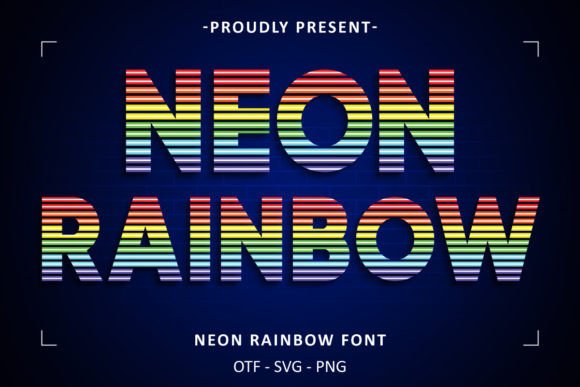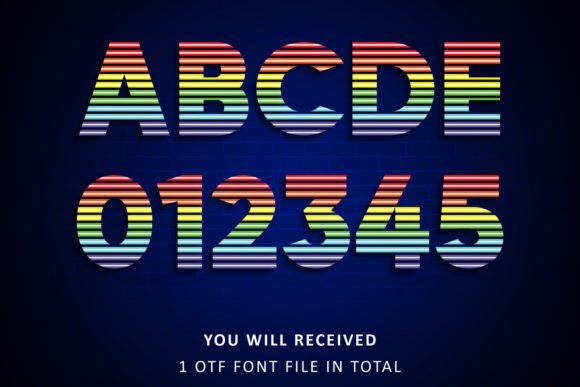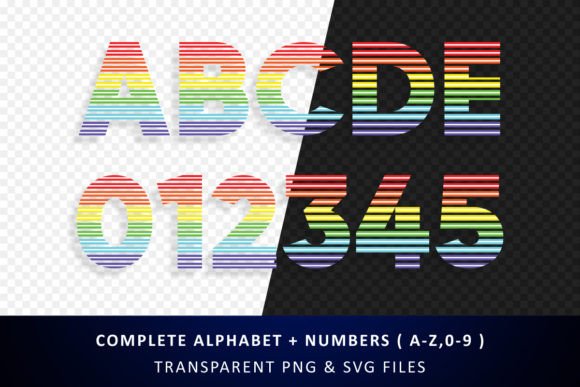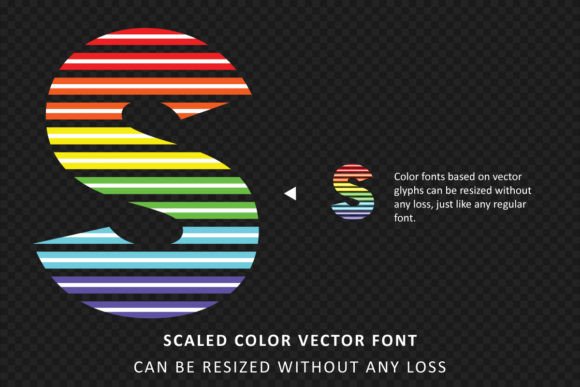
Neon Rainbow Font
About the Neon Rainbow Font
Elevate your designs with Neon Rainbow Font, a font that combines sophistication with readability. Introducing “Neon Rainbow Font” – This charming font was created inspired by the colorful neon lights of the night combined with the beautiful colors of the rainbow. Its vivid hues and sleek letterforms capture the essence of urban neon signs, creating a visually striking and modern aesthetic.
Neon Rainbow Font is ideally suited for headlines, short impactful text in posters, and branding applications where a bold, energetic statement is desired. Its vibrant nature makes it perfect for projects related to entertainment, nightlife, or youthful brands. Avoid using it for body text or lengthy paragraphs; the high saturation and distinctive forms hinder readability in extended use.
Consider pairing Neon Rainbow Font with a clean sans-serif like Open Sans for contrast, or a geometric sans-serif for a more modern, unified feel. A simple serif typeface could also provide a sophisticated counterpoint, grounding the vibrancy of the neon aesthetic.
The overall personality is fun, modern, and attention-grabbing; its playful energy makes it unsuitable for projects requiring a serious or sophisticated tone.